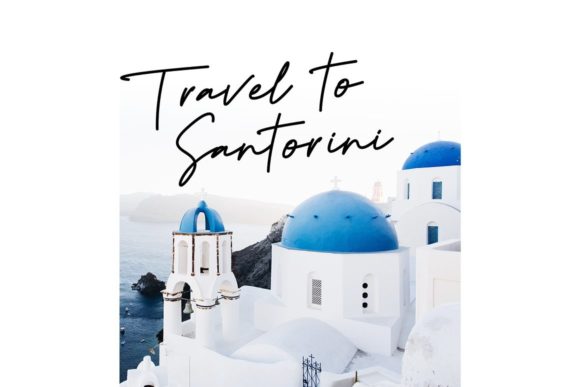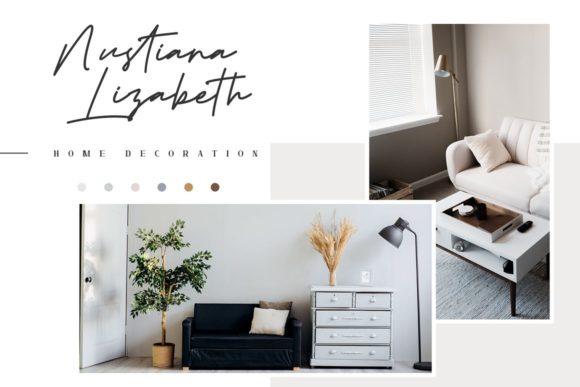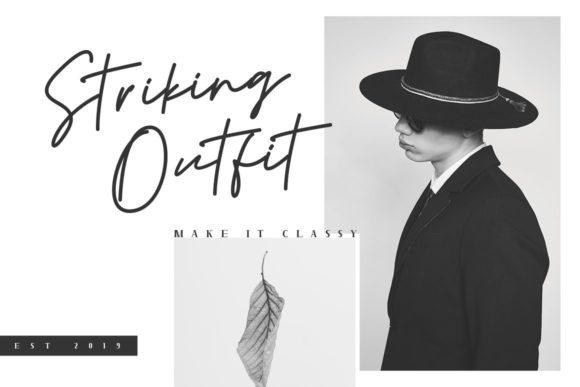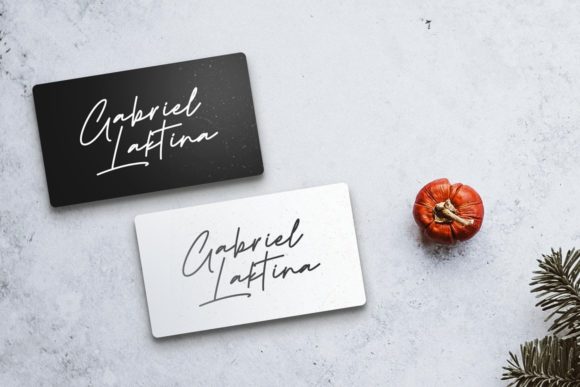
About Doupple Signature Font
Doupple Signature is a fashionable and beautiful handwritten font that effortlessly combines class, elegance, and a modern look. With its stylish letterforms and sophisticated charm, this font is perfect for a wide range of projects, including logos, branding, invitations, stationery, wedding designs, social media posts, and more.
The classy, elegant, and modern look of Doupple Signature makes it a versatile choice for various design purposes. Whether you’re creating a professional logo, designing elegant wedding invitations, crafting stylish stationery, or curating engaging social media posts, Doupple Signature will add a touch of sophistication and style to your designs.
This font’s handwritten style exudes a sense of authenticity and personalization, making it ideal for creating a unique and memorable visual identity. The elegant and flowing letterforms of Doupple Signature reflect a contemporary aesthetic while retaining a timeless appeal.
Embrace the fashion-forward and beautiful qualities of Doupple Signature and incorporate it into your projects with confidence. You will be amazed at how it enhances your designs and brings a touch of class and elegance to every aspect.